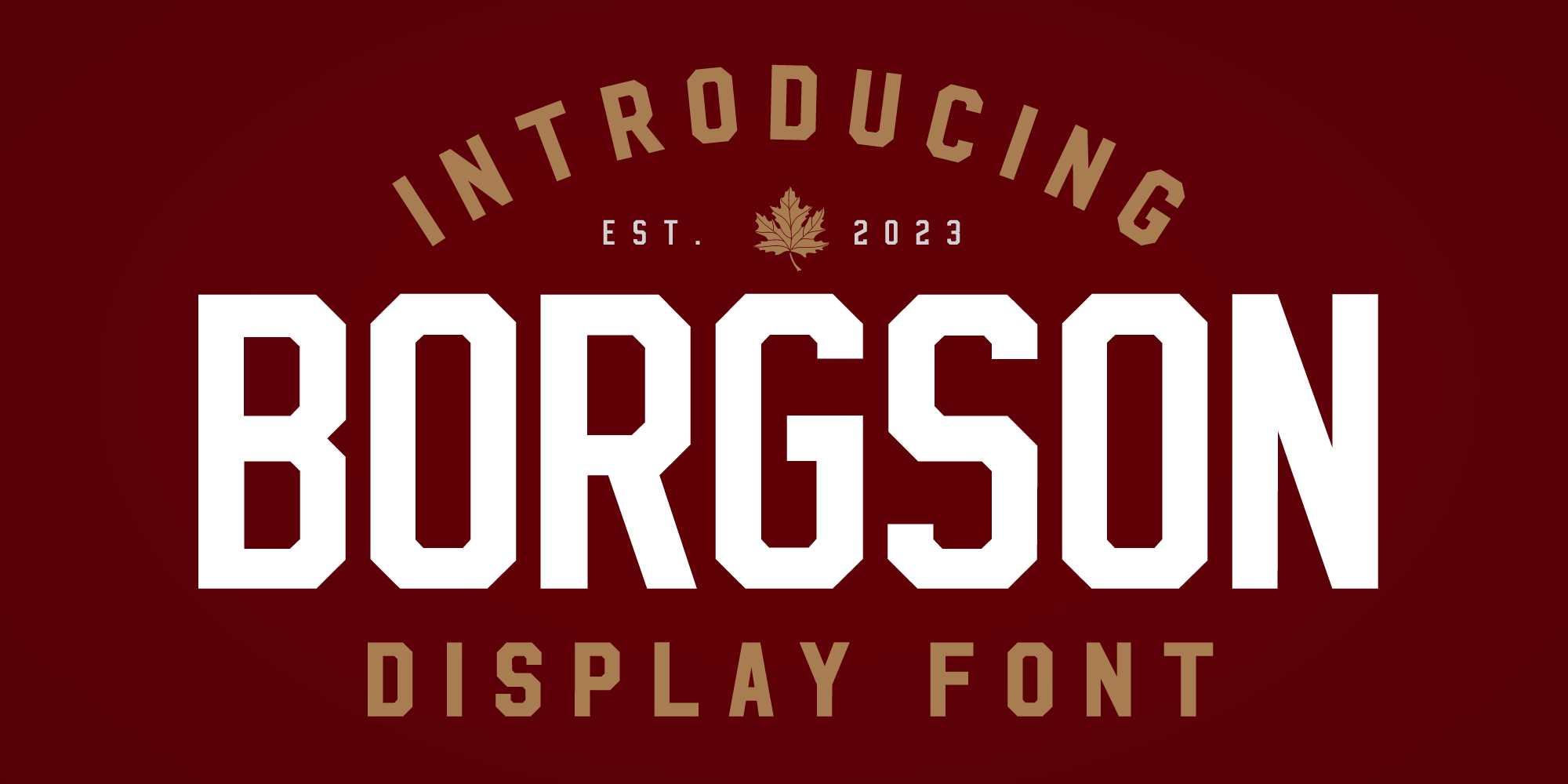
Borgson Font is perfect for science fiction movie titles, tech startup branding, futuristic product packaging, cyberpunk game interfaces, space exploration presentations, robotics company logos, artificial intelligence publications, digital art exhibitions, virtual reality experiences, and advanced technology conferences.
What makes Borgson Font so exciting is its masterful projection of technological advancement and futuristic innovation through precisely engineered letterforms that embody the essence of digital evolution and mechanical precision. The font's design philosophy centers on creating a bridge between human creativity and machine efficiency, featuring geometric structures, clean lines, and calculated proportions that suggest advanced engineering and cutting-edge technology. Each character appears to be forged from digital blueprints, creating a visual language that instantly communicates progress, intelligence, and the limitless possibilities of technological advancement. This remarkable typeface transforms ordinary messages into sophisticated expressions of innovation and scientific achievement that resonate with audiences seeking forward-thinking design solutions.
The Borgson Font family includes technological variations: Regular, Bold, Light, Medium, Condensed, Extended, Italic, Outline, and Circuit styles. Each variation maintains the font's characteristic futuristic essence while offering different levels of technical complexity and digital detail for various high-tech design applications.
When searching for a typeface that captures the essence of technological innovation and scientific advancement, Borgson Font Free Download represents the pinnacle of futuristic typography design that elevates any project to new dimensions of digital sophistication and technological credibility.
The precisely engineered letterforms of Borgson Font demonstrate superior attention to technical accuracy, featuring mathematical proportions, systematic spacing, and carefully calculated angles that ensure optimal readability across all digital and print mediums. Its versatile design adapts seamlessly from intricate circuit board diagrams to massive technology expo banners.
Professional designers working on technology sectors, scientific institutions, and innovation-focused brands particularly value the font's ability to convey expertise, reliability, and cutting-edge appeal. The typeface works exceptionally well for projects targeting tech-savvy audiences, early adopters, and anyone seeking to project advanced technological positioning and scientific credibility.
The extensive OpenType features of Borgson Font include technical alternates, systematic ligatures, and specialized character sets that enable designers to create sophisticated technological typography while maintaining the font's distinctive futuristic character throughout all design elements and scientific applications.